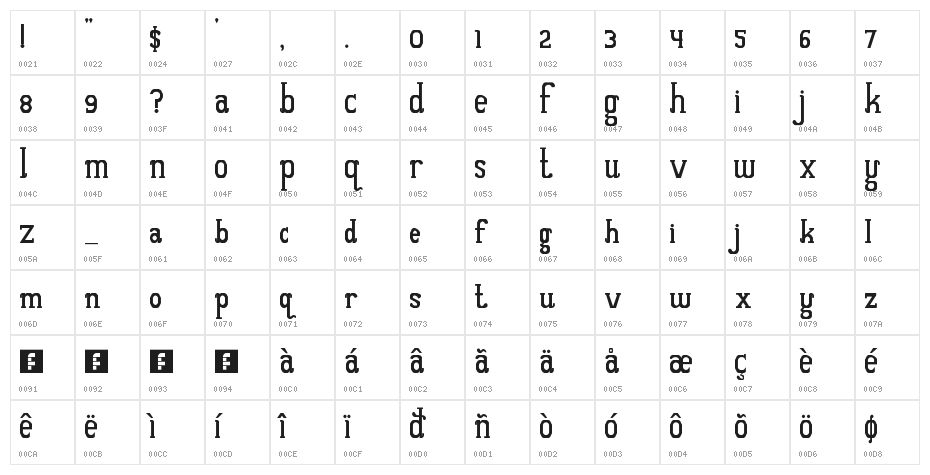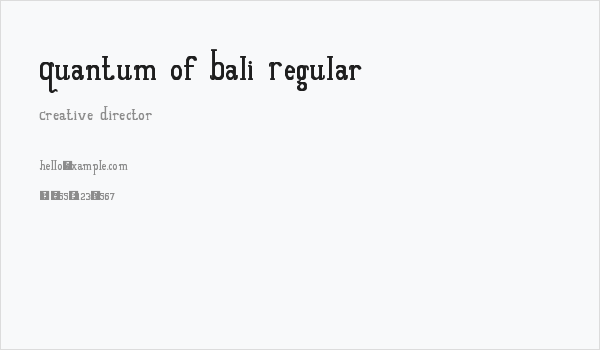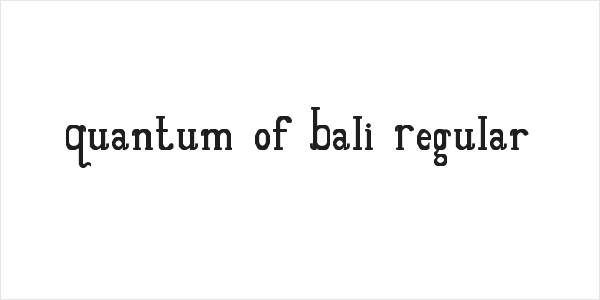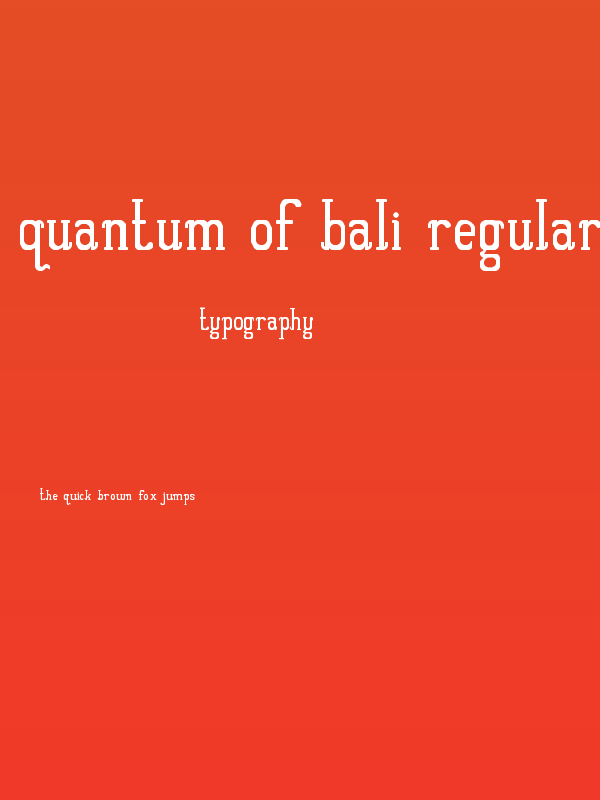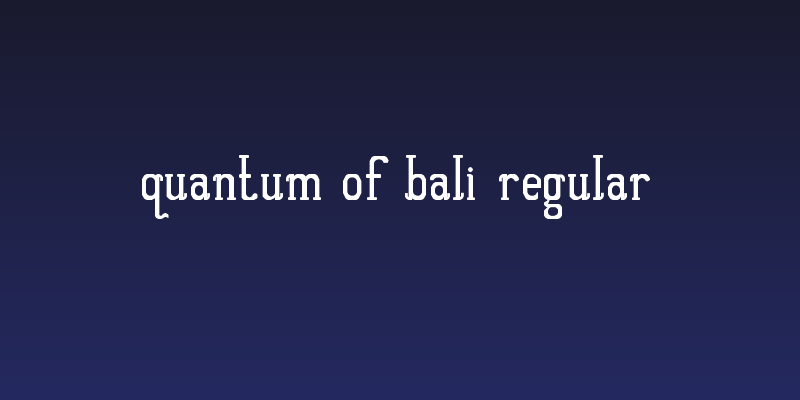
Quantum of Bali Regular Font
Quantum of Bali Regular Description
This font features a unique blend of modern and vintage elements, characterized by its bold, slab serif style. The letters are distinct with a strong presence, making it ideal for attention-grabbing designs. The uppercase and lowercase letters maintain a consistent weight, providing a balanced look. Numbers and special characters are designed with the same boldness, ensuring uniformity across all text. The font's geometric shapes and clean lines contribute to its modern appeal, while the serifs add a touch of classic elegance.
| Overall Style | Modern, Vintage |
| Proposed Projects | Ideal for headlines, posters, branding, and logo design where a strong and distinctive typeface is needed. |